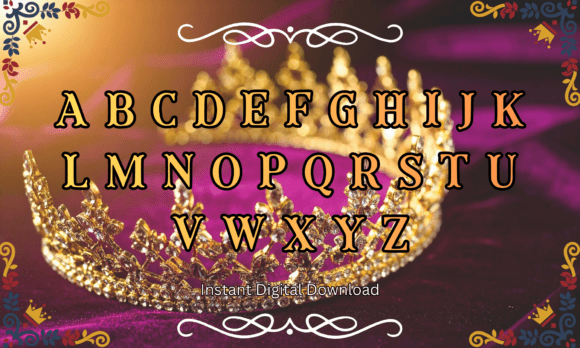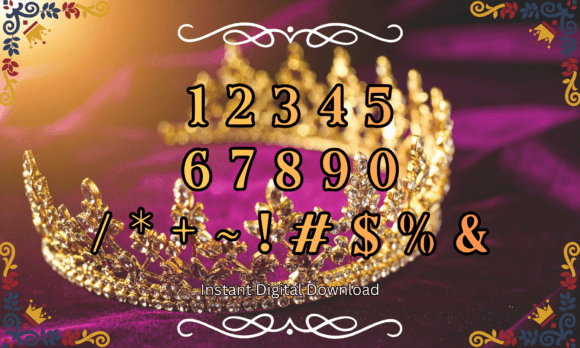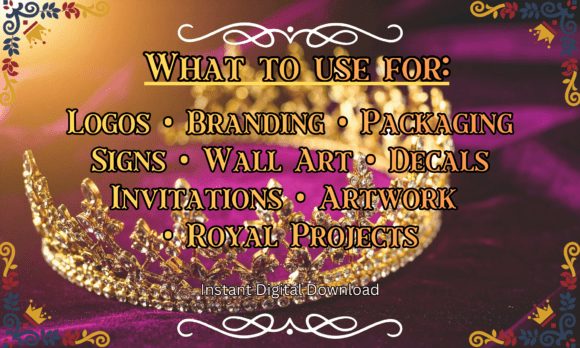
Introduction to Regal Crown Font
Have you ever been working on a design project and felt like it’s missing that extra touch of sophistication? You know, the kind of elegance that makes your creation stand out from the crowd? For designers, finding the perfect font can be a game-changer. That’s where the Regal Crown Font comes in – a stunning, high-quality display font designed to command attention and elevate your premium designs.
With its bold, regal aesthetic, the Regal Crown Font is perfect for a wide range of creative projects, from luxury branding and wedding invitations to beauty and fashion brands. Its transparent background and versatility make it a valuable resource for any designer looking to add a touch of luxury and drama to their work.
Key Features of Regal Crown Font
- High-quality, elegant design suitable for various creative projects, including invitations, logos, and branding materials.
- Features a transparent background, allowing for easy customization and integration with various design elements.
- Includes multiple font styles and weights, including bold, regular, and italic, to cater to different design requirements.
- Designed to be highly legible, even at small font sizes, making it an excellent choice for body text and headings.
Honest Review: Regal Crown Font
I recently had the chance to work with the Regal Crown Font, and I must say it’s been a great addition to my design resource library. ✨ This high-quality font is perfect for any creative project that requires a touch of elegance and sophistication.
One of the things I love about Regal Crown Font is its versatility. It comes with a transparent background, making it easy to overlay on any design without worrying about complicated background removals. This feature has saved me a lot of time and effort on multiple occasions.
- High-quality design that exudes elegance and sophistication
- Transparent background for easy overlay
- Not suitable for casual, playful designs
- May not be as customizable as some other fonts
Regal Crown Font
To get the most out of the Regal Crown Font, use it in conjunction with other high-quality design resources, such as images and graphics. Experiment with different font sizes, colors, and styles to create unique and eye-catching designs.
The Regal Crown Font is commonly used in a variety of creative projects, including logos, business cards, and wedding invitations. Its elegant and sophisticated design makes it ideal for formal and professional applications.